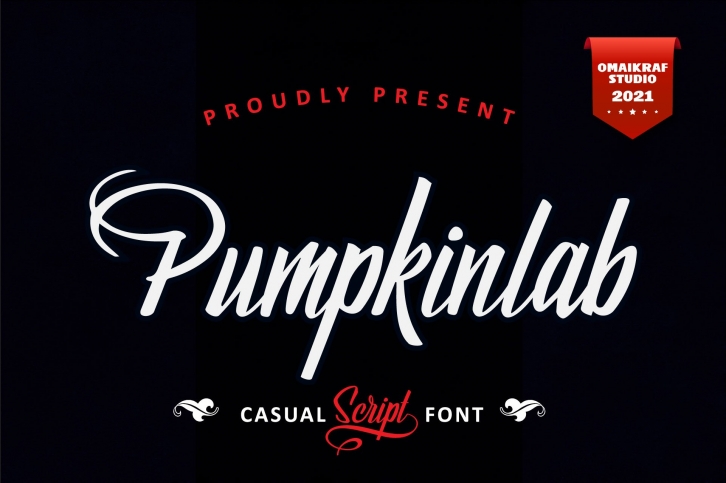
Pumpkinlab is a beautiful font that was designed by Omaikraf. It's a great choice for designers and creatives who need such a font. It was released on May 31, 2022 and the file size is 11.56 MB. Pumpkinlab may give a more youthful, expressive and casual look to your project. It is a very beautiful, refined, elegant, and high-quality font.